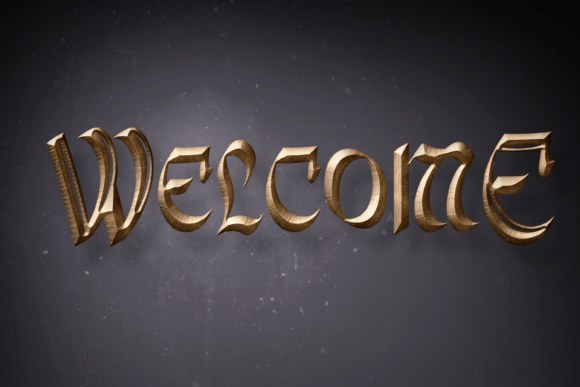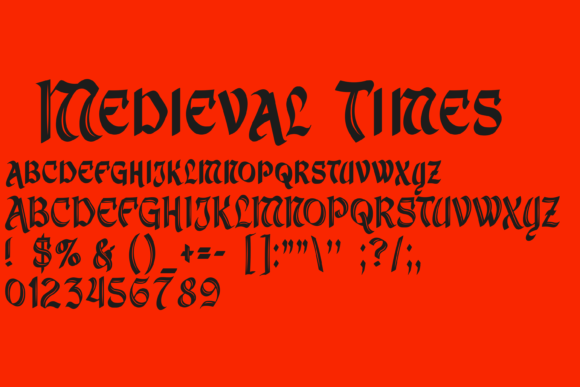
Introduction to Medieval Timeline Font
Have you ever found yourself lost in a world of ancient legends and forgotten lore, only to be brought back to reality by the sound of a keyboard clacking away? That’s exactly what happened to me when I stumbled upon the Medieval Timeline Font. Its bold, Gothic-inspired lettering instantly transported me to a realm of medieval wonder, and I knew I had to share it with fellow designers and creatives.
As a design resource, the Medieval Timeline Font is a treasure trove of creative possibilities. With its high-quality, transparent background, it’s the perfect addition to any historical-themed project. Whether you’re working on a book cover, a website, or a social media campaign, this font is sure to bring an air of authenticity and mystique to your design. And the best part? It’s available for free download, making it an invaluable resource for designers on a budget.
Key Features of Medieval Timeline Font
- High-quality design resource ideal for creative projects, including timelines, infographics, and historical presentations.
- Features a transparent background, allowing for easy customization and layering in your design.
- Includes a range of stylish and elegant characters, perfect for adding a touch of medieval flair to your design.
Honest Review: Medieval Timeline Font
I recently stumbled upon the Medieval Timeline Font, and I must say it’s been a game-changer for my creative projects. As a designer, I’m always on the lookout for high-quality design resources that can help me stand out. This font definitely delivers.
- ✨ Unique Style: The Medieval Timeline Font has a distinct, intricate design that’s perfect for creating a sense of history and nostalgia.
- ✨ High-Quality Download: The font is available as a free download, and the quality is top-notch – no blurry or pixelated images here.
- ✨ Transparent Background: The font’s transparent background makes it easy to overlay on top of other design elements, giving me endless possibilities for creative projects.
- ⚠️ Limited Character Set: The font only includes a limited set of characters, which can be a drawback for some users.
- ⚠️ No Support for Special Characters: I encountered some issues when trying to use special characters, such as accents or symbols, with the font.
Overall, I’m really impressed with the Medieval Timeline Font. While it may have some limitations, its unique style and high-quality design make it a valuable addition to any designer’s toolkit. If you’re looking for a creative way to add some historical flair to your projects, this font is definitely worth checking out.
Medieval Timeline Font
With the Medieval Timeline Font, you can create a high-quality design that stands out with its unique aesthetic.
The Medieval Timeline Font is a great design resource for creating a transparent background effect.
Use the Medieval Timeline Font to create a timeline, infographic, or any other creative project that requires a unique and eye-catching design element.
Some common use cases include:
- Creating a historical timeline for a school project or presentation.
- Designing an infographic to display data or statistics.
- Adding a unique touch to a business presentation or report.
With the Medieval Timeline Font, you can create a high-quality design that stands out and engages your audience.